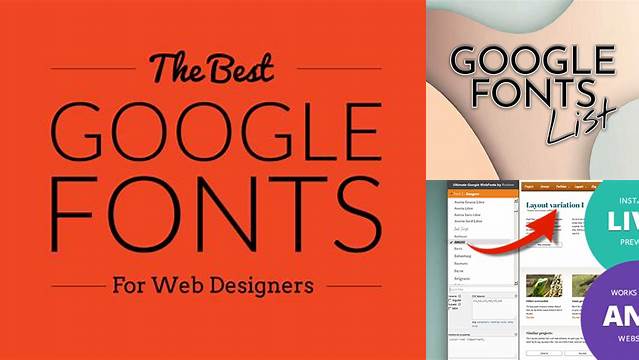
Google Web Fonts: The Ultimate Guide For Designers
Choosing the right fonts for your website can dramatically impact its overall look and feel. Google Web Fonts offers a vast library of free, open-source fonts that can help you create a unique and professional online presence. But with so many options, where do you even begin? Don't worry, guys! This ultimate guide will walk you through everything you need to know about Google Web Fonts, from understanding what they are to selecting and implementing them effectively. We'll cover the basics, dive into advanced techniques, and even explore some common pitfalls to avoid. So, let’s get started on making your website typography awesome!
What are Google Web Fonts?
So, what exactly are Google Web Fonts? Simply put, they are a collection of fonts that Google makes available for free use on websites. This is a game-changer because previously, web designers were limited to a small set of “web-safe” fonts that were guaranteed to be installed on most computers. This meant a lot of websites looked pretty similar. Google Web Fonts opened up a whole new world of typographic possibilities, allowing designers to use a wide range of fonts without needing to purchase licenses or worry about compatibility issues. Think of it like having an unlimited supply of paint colors for your digital canvas! The best part? They are open source, meaning anyone can use them, contribute to them, or even create their own. This fosters a vibrant community and ensures a constant stream of new and interesting typefaces. Choosing the right font can significantly enhance your website's readability, visual appeal, and overall brand identity. The impact of well-chosen typography should not be underestimated, because it can influence everything from user engagement to conversion rates. Google Fonts makes it easier than ever to achieve professional-looking typography without breaking the bank.
Why Use Google Web Fonts?
Okay, so we know what they are, but why should you use Google Web Fonts? There are several compelling reasons. First and foremost, they're free. Yes, you read that right! You get access to a massive library of high-quality fonts without paying a dime. This is a huge benefit, especially for small businesses or individuals on a budget. But the advantages don't stop there. Google Web Fonts are also incredibly easy to use. They can be seamlessly integrated into your website with just a few lines of code, and many website builders and content management systems (CMS) offer built-in support for them. Another key benefit is that Google Web Fonts are served from Google's servers, which are highly optimized for speed and reliability. This means that your website will load quickly, and your fonts will always be available to your visitors. Let's face it, nobody likes a slow-loading website! Moreover, using Google Web Fonts ensures cross-browser compatibility, so your website will look consistent across different browsers and devices. This is crucial for providing a seamless user experience. Finally, the sheer variety of fonts available in the Google Web Fonts library is staggering. Whether you're looking for a classic serif, a modern sans-serif, or a quirky display font, you're sure to find something that fits your needs. Using Google Web Fonts not only makes your website look better but also contributes to a faster, more reliable, and more user-friendly online experience.
How to Choose the Right Google Web Font
Choosing the right Google Web Font can feel like a daunting task, especially with so many options available. But don't worry, guys, we'll break it down! The first step is to consider your brand. What kind of message do you want to convey? A serious and professional brand might benefit from a classic serif font like Roboto Slab or a clean sans-serif like Open Sans. A more playful or creative brand might opt for a unique display font or a handwritten script. Think about the overall personality of your brand and choose fonts that align with it. Next, think about readability. A beautiful font is useless if it's difficult to read. For body text, it's generally best to stick with simpler fonts that are easy on the eyes, such as Lato or Merriweather. Display fonts can be used for headings and other design elements, but be sure to use them sparingly. Pairing fonts is another important consideration. A good rule of thumb is to choose one font for headings and another for body text. You can create visual contrast by pairing a serif with a sans-serif or by using different weights of the same font family. Remember to test your fonts on different devices and browsers to ensure they look good across the board. What looks great on your desktop might not translate well to a mobile screen. Use Google Fonts’ preview tools and test on various devices. Finally, limit your font choices. Using too many different fonts can make your website look cluttered and unprofessional. Stick to a maximum of two or three fonts for a cohesive and polished look. Choosing the perfect Google Web Font is a process that involves understanding your brand, prioritizing readability, and experimenting with different pairings. But with a little planning and effort, you can find fonts that will truly elevate your website's design.
Optimizing Google Web Fonts for Performance
Using Google Web Fonts is fantastic for design, but it's crucial to optimize them for performance to ensure your website loads quickly. Slow-loading websites can frustrate users and negatively impact your search engine rankings. So, what can you do to make sure your Google Web Fonts are performing optimally? The first step is to choose only the font styles and weights you need. Each font style (e.g., regular, bold, italic) and weight (e.g., 400, 700) adds to the file size of the font, which can slow down your website. If you're only using the regular and bold weights of a font, don't load the other weights. Google Fonts makes it easy to select only the styles you need when you embed the font code. Another optimization technique is to use the font-display property in your CSS. This property controls how the browser handles font loading. The swap value is often recommended because it tells the browser to display the text in a fallback font immediately and then swap to the Google Web Font once it's loaded. This prevents the dreaded “flash of invisible text” (FOIT) and improves the perceived loading speed of your website. Preloading fonts can also improve performance. This involves telling the browser to download the font files as early as possible. You can do this by adding a <link rel="preload"> tag to your HTML <head>. Make sure to specify the correct font file path and format (e.g., woff2). Finally, consider using a Content Delivery Network (CDN). While Google Web Fonts are served from Google's CDN, if you're self-hosting fonts, using a CDN can help distribute your font files globally, reducing latency and improving loading times for users around the world. Optimizing Google Web Fonts is a crucial step in ensuring a fast and enjoyable user experience on your website. By following these tips, you can keep your site looking great without sacrificing performance.
Common Mistakes to Avoid with Google Web Fonts
Using Google Web Fonts can significantly enhance your website's design, but it's easy to make mistakes if you're not careful. Let's look at some common pitfalls and how to avoid them. One frequent mistake is using too many fonts. While the variety of Google Web Fonts is tempting, using more than two or three fonts can make your website look cluttered and unprofessional. Stick to a limited palette of fonts for a cohesive and polished design. Another common error is neglecting font pairings. Not all fonts work well together. Pairing a serif font with a sans-serif font can create a nice contrast, but it's important to choose fonts that complement each other in terms of style and weight. Experiment with different pairings and use online resources like font pairing generators for inspiration. Ignoring readability is another big mistake. A beautiful font is useless if it's difficult to read. Ensure that your chosen fonts are legible, especially for body text. Consider factors like font size, line height, and letter spacing. Avoid overly decorative or condensed fonts for large blocks of text. Failing to optimize font loading can negatively impact your website's performance. As we discussed earlier, make sure to choose only the font styles and weights you need, use the font-display property, and consider preloading fonts. Overlooking these optimizations can lead to slow loading times and a poor user experience. Finally, not testing your fonts across different browsers and devices is a critical oversight. What looks great on your desktop might not render correctly on a mobile device or in a different browser. Always test your website thoroughly to ensure your fonts display as intended. Avoiding these common mistakes will help you make the most of Google Web Fonts and create a visually appealing and user-friendly website.
Best Practices for Using Google Web Fonts
To really master Google Web Fonts, it’s important to follow some best practices. These guidelines will not only help you create a visually appealing website but also ensure optimal performance and user experience. First off, always prioritize readability. As we’ve mentioned, the most beautiful font is worthless if your visitors can’t easily read your content. Choose fonts that are clear and legible, especially for body text. Consider the font size, line height, and letter spacing to enhance readability. Establish a clear typographic hierarchy. Use different font sizes, weights, and styles to distinguish headings, subheadings, and body text. This helps users quickly scan your content and understand the structure of your pages. For example, use a larger and bolder font for headings and a smaller, simpler font for body text. Be consistent with your font choices. Use the same fonts throughout your website to create a cohesive look and feel. Consistency builds trust and helps establish your brand identity. Avoid switching fonts unnecessarily, as this can make your website look disjointed. Test your font combinations. Before launching your website, test your chosen font pairings on different devices and browsers. Ensure that the fonts look good together and that they render correctly across various platforms. This will help you catch any potential issues before they affect your users. Regularly review and update your fonts. Typography trends evolve, and what looked stylish a few years ago might now seem outdated. Periodically review your font choices and consider updating them to keep your website looking fresh and modern. This doesn’t mean you need to completely overhaul your typography, but subtle tweaks can make a big difference. Following these best practices will help you leverage Google Web Fonts effectively and create a visually stunning website that delivers a great user experience.
Google Fonts vs. Other Web Font Services
Google Web Fonts is a popular choice, but it's not the only web font service out there. It's worth exploring how it stacks up against other options to make the best decision for your website. Let's compare Google Web Fonts to some alternatives. One major competitor is Adobe Fonts (formerly Typekit). Adobe Fonts is a subscription-based service that offers a vast library of high-quality fonts, including many premium typefaces. Unlike Google Web Fonts, which is free, Adobe Fonts requires a paid subscription, which is included with most Adobe Creative Cloud plans. Adobe Fonts offers a broader selection of fonts, but Google Web Fonts provides a solid range of free options that can meet most needs. Another alternative is Fontspring, which is known for its licensing terms and high-quality fonts. Fontspring offers both subscription and perpetual license options, giving you flexibility in how you pay for fonts. While Fontspring's font quality is excellent, it comes at a higher cost than Google Web Fonts. Fonts.com is another popular service that offers a wide variety of fonts, including both free and paid options. However, Fonts.com's free options are more limited than Google Web Fonts, and its paid fonts can be quite expensive. Self-hosting fonts is also an option. This involves downloading font files and hosting them on your own server. Self-hosting gives you more control over font delivery, but it also requires more technical expertise and can potentially impact website performance if not done correctly. Google Web Fonts offers a balance of convenience, cost-effectiveness, and quality. It's free, easy to use, and offers a wide selection of fonts that are served from Google's reliable servers. While other services offer more options or features, Google Web Fonts remains a top choice for many web designers and developers. Weighing the pros and cons of each option will help you choose the web font service that best fits your needs and budget.
The Future of Google Web Fonts
So, what does the future hold for Google Web Fonts? It's a continually evolving service, and we can expect to see some exciting developments in the coming years. One trend to watch is the increasing focus on variable fonts. Variable fonts are a relatively new font format that allows for a single font file to contain multiple variations of a typeface, such as different weights, widths, and styles. This can significantly reduce file sizes and improve website performance. Google Web Fonts has already started to incorporate variable fonts into its library, and we can expect to see more of them in the future. Another area of development is improved font discovery and filtering. With such a vast library of fonts, finding the perfect one can be challenging. Google Web Fonts is likely to introduce new features that make it easier to search, filter, and preview fonts. This might include more advanced filtering options, improved font recommendations, and better integration with design tools. Accessibility will continue to be a key focus. Google Web Fonts is committed to providing fonts that are accessible to users with disabilities. This includes ensuring that fonts have good contrast ratios and are legible for people with visual impairments. We can expect to see ongoing efforts to improve the accessibility of Google Web Fonts. Integration with other Google services is also likely to expand. Google Web Fonts already integrates seamlessly with Google Docs and other Google products, and we can anticipate further integration in the future. This might include new ways to use Google Web Fonts in Google Ads or other marketing platforms. The future of Google Web Fonts looks bright. With its commitment to innovation, accessibility, and performance, it will continue to be a leading resource for web designers and developers. Staying informed about these developments will help you leverage Google Web Fonts to its fullest potential.
Google Fonts for Different Languages
Google Fonts supports a wide range of languages, making it a versatile resource for creating multilingual websites. If your website targets an international audience, Google Fonts can help you provide a consistent and accessible typographic experience for all users. Let's explore how to use Google Fonts for different languages. Check font support. Not all Google Fonts support all languages. Before choosing a font for a specific language, check the font's page on Google Fonts to see which languages it supports. Look for the